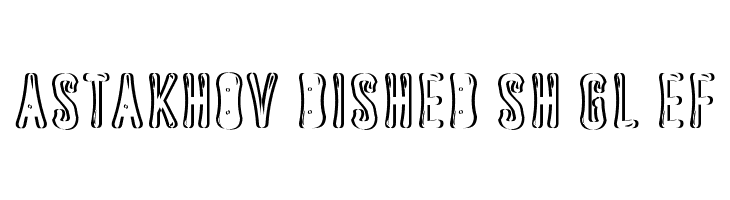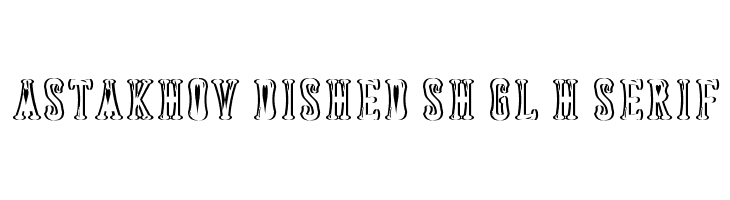
A playful, three-dimensional decorative font with bold, shadowed characters.
A bold, decorative font with a playful, three-dimensional style.
A bold, decorative font with a three-dimensional shadow effect.
A bold, decorative font with a three-dimensional effect and vintage flair.
A bold, decorative font with a 3D effect and artistic flair.
A bold, decorative font with vintage flair and intricate detailing.
A bold, decorative font with star motifs and a three-dimensional shadow effect.
A bold, decorative serif font with star motifs and a vintage flair.
A decorative font with bold outlines and playful heart accents.
A bold, decorative font with heart-shaped cutouts and consistent stroke width.